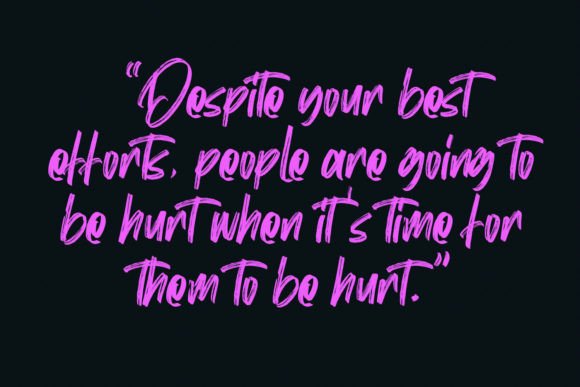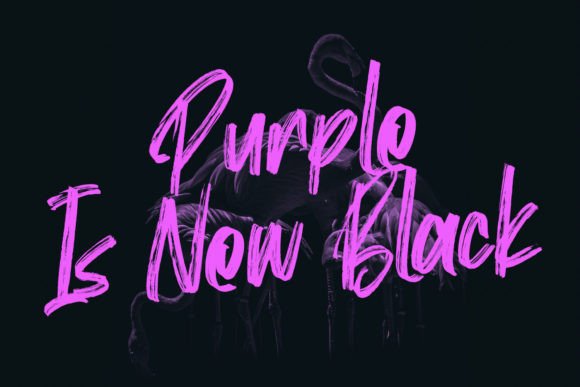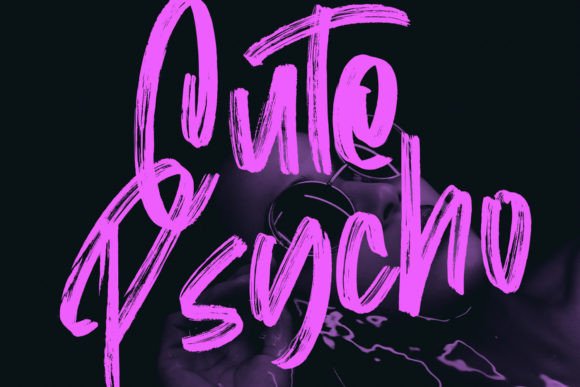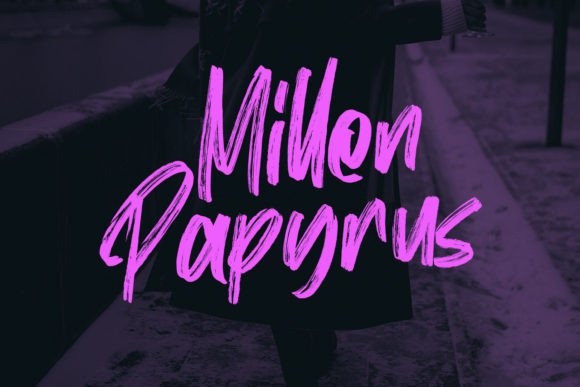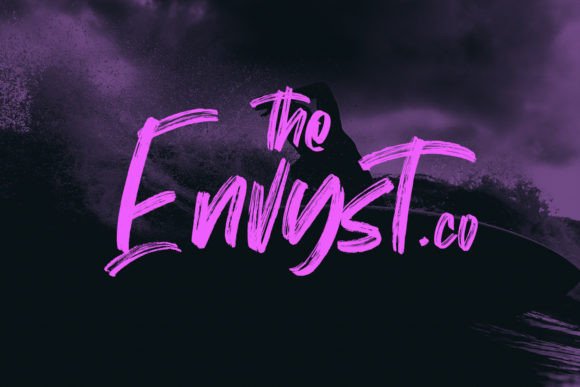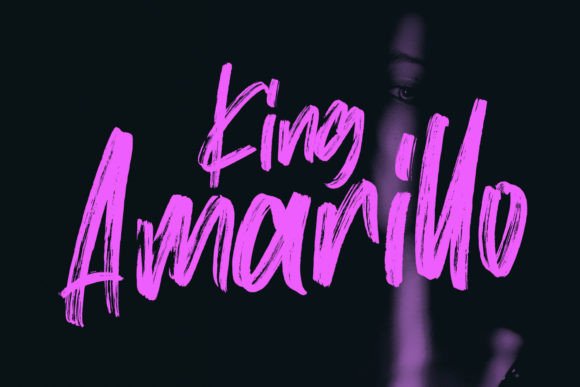
Introduction to Hollow Crows Font
As a designer, have you ever found yourself staring at a blank canvas, waiting for that perfect spark of inspiration to strike? The moment when the words start flowing, and the creativity pours out? For many of us, that moment is what makes the long hours of design work worth it. And sometimes, all it takes is the right font to set that spark off.
Enter the Hollow Crows Font – a stunning, expressive handwritten brush font that’s about to become your new go-to design resource. With its slanted, rough brush strokes and fun, ligature-filled characters, this high-quality font is perfect for adding a touch of personality to your creative projects. Whether you’re working on a logo design, social media graphics, or even a movie title, the Hollow Crows Font is sure to bring your work to life.
And the best part? With a transparent background option available, you can easily combine it with your favorite sans or serif font to create stunning contrast and visual interest. So why settle for a generic font when you can add some real character to your design with the Hollow Crows Font?
Key Features of Hollow Crows Font
- Unique, hand-drawn design ideal for creative projects requiring a high-quality, custom look.
- Designed with a bold, striking aesthetic, making it perfect for use in logos, branding materials, and other visual identity projects.
Honest Review: Hollow Crows Font
The Hollow Crows Font is an intriguing addition to any designer’s toolkit, offering a unique blend of elegance and mystique. As a design enthusiast, I was excited to dive in and explore its features.
- ✨ High-quality design that exudes sophistication and style, perfect for creative projects that require a touch of sophistication.
- ✨ Transparent background, making it easy to layer and manipulate the font within your design.
- ⚠️ Limited customization options, which may be a drawback for designers who prefer a high degree of control over their fonts.
Overall, the Hollow Crows Font is a solid choice for designers looking to add a touch of whimsy and elegance to their work. While it may have some limitations, its unique design and high-quality feel make it a valuable addition to any design resource library.
Use Hollow Crows Font in combination with other design elements to create a visually striking design.
Experiment with different font sizes and colors to add depth and interest to your design.
Common Use Cases for Hollow Crows Font
Hollow Crows Font is ideal for use in creative projects such as logos, brochures, and social media graphics.
Its unique and creative style makes it perfect for designers who want to add a touch of elegance and sophistication to their designs.